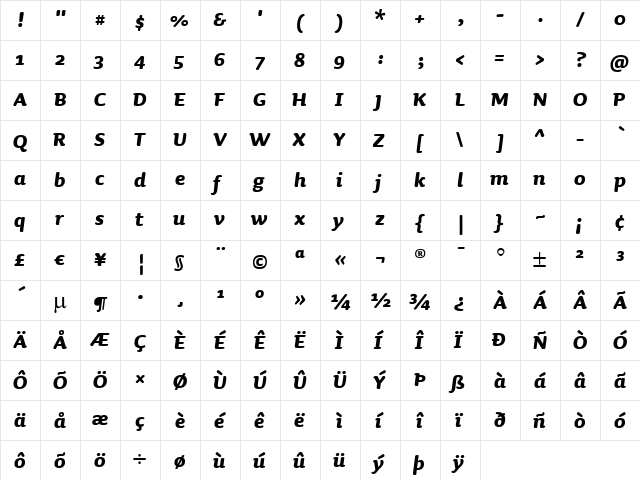
Sauna-BoldItalic Roman Italic
| Style | Roman Italic |
Design Context for Sauna-BoldItalic Typeface
Sauna-BoldItalic is a composed and adaptable typeface that performs quietly and consistently across a wide range of design contexts. Its italic angle brings a sense of urgency and motion to the letterforms. The heavy weight commands attention and anchors typographic hierarchies.